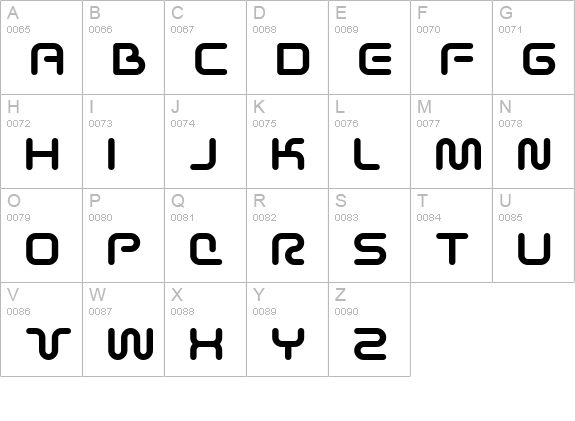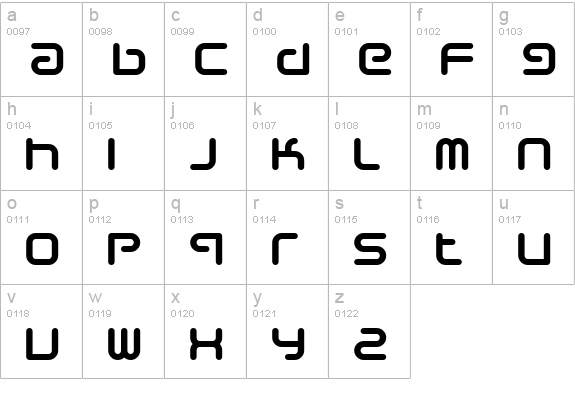
Introducing Sci Fied, a revolutionary font that boldly takes typography to new frontiers. With its sleek and futuristic design, Sci Fied captures the essence of science fiction and brings it to life on the page. This font combines sharp edges and smooth curves, creating a visually captivating experience that transports readers to distant galaxies and alternate realities. But what sets Sci Fied apart is not just its captivating aesthetics, but also its accessibility. We believe that creativity should be free, and that is why Sci Fied is freely available to download at FontsMarket.com. Whether you are a designer, writer, or simply someone who appreciates the power of visual storytelling, this font is the perfect tool to unleash your imagination and bring your ideas to life. With Sci Fied, you have the freedom to explore endless possibilities. Its versatility allows it to be used in a wide range of projects, from book covers and movie posters to website designs and digital art. Its clean and legible letterforms ensure that your message is communicated clearly, while its unique style adds a touch of intrigue and excitement. The Sci Fied font family includes a variety of weights and styles, allowing you to customize and tailor your designs to suit your specific needs. Whether you want to create bold headlines or elegant body text, this font has you covered. So why wait? Let your creativity soar and embark on a journey through the cosmos with Sci Fied. Download it for free at FontsMarket.com and unlock a universe of possibilities. It's time to boldly go where no font has gone before.